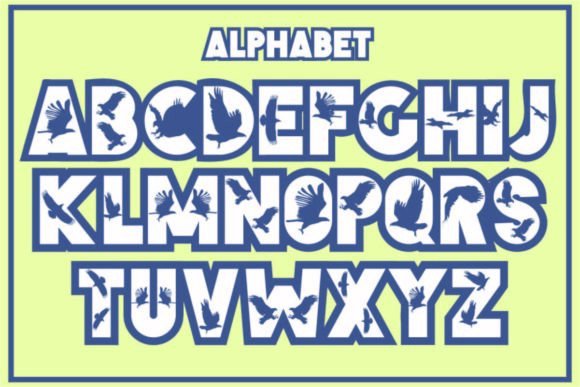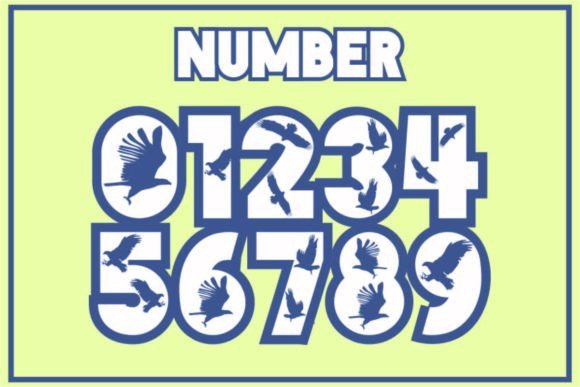
Eagle Font: Elevate Your Designs with a Patriotic Twist
Are you on the lookout for a font that exudes patriotism and elegance? Look no further than the Eagle Font! This cool and unique decorative font is perfect for designers and crafters seeking to add a touch of American flair to their projects. In this article, we’ll dive into the world of Eagle Font, exploring its features, uses, and the endless creative possibilities it offers.
What is Eagle Font?
Eagle Font is a creative typeface designed to evoke the spirit of patriotism and freedom. Its unique and decorative style makes it an excellent choice for various design projects, from invitations and letters to craft projects and digital designs. With its bold and eye-catching appearance, Eagle Font is sure to make a statement in any design.
Features of Eagle Font
Eagle Font boasts several features that make it a standout choice for designers and crafters:
- Unique and Decorative Style: Eagle Font’s distinctive design sets it apart from other fonts, making it perfect for projects that require a touch of elegance and sophistication.
- Patriotic Appeal: The font’s American-inspired design makes it an excellent choice for patriotic designs, such as Independence Day or Memorial Day projects.
- Versatility: Eagle Font can be used in a wide range of design projects, from digital designs to print materials.
Uses of Eagle Font
Eagle Font’s versatility makes it suitable for various design projects, including:
- Invitations: Add a touch of elegance to your invitations, whether it’s for a wedding, birthday party, or baby shower.
- Letters: Elevate your letters with Eagle Font, making them perfect for special occasions or everyday correspondence.
- Craft Projects: Use Eagle Font to add a personal touch to your craft projects, such as scrapbooking, card making, or DIY signs.
- Digital Designs: Incorporate Eagle Font into your digital designs, including social media graphics, blog posts, or website headers.
Tips for Using Eagle Font
To get the most out of Eagle Font, follow these tips:
- Experiment with Colors: Pair Eagle Font with bold and vibrant colors to create striking designs.
- Mix and Match Fonts: Combine Eagle Font with other fonts to create unique and visually appealing designs.
- Play with Sizes: Use Eagle Font in various sizes to create visual hierarchy and add emphasis to your designs.
Eagle Font offers endless creative possibilities, making it an excellent addition to any designer’s or crafter’s toolkit. With its unique and decorative style, patriotic appeal, and versatility, you can create stunning designs that showcase your creativity and style.
In conclusion, Eagle Font is a cool and unique decorative font that can elevate your designs with a patriotic twist. Its features, uses, and endless creative possibilities make it an excellent choice for designers and crafters seeking to add a touch of elegance and sophistication to their projects. So, have fun with this beautiful font, explore its endless variations, and get ready to be astounded by the outcome!
Get Creative with Eagle Font!
Ready to unleash your creativity with Eagle Font? Here are some ideas to get you started:
- Create a patriotic-themed party invitation with Eagle Font as the main attraction.
- Design a custom sign with Eagle Font to showcase your favorite quote or phrase.
- Use Eagle Font to create a stunning digital design for your social media profiles or website.